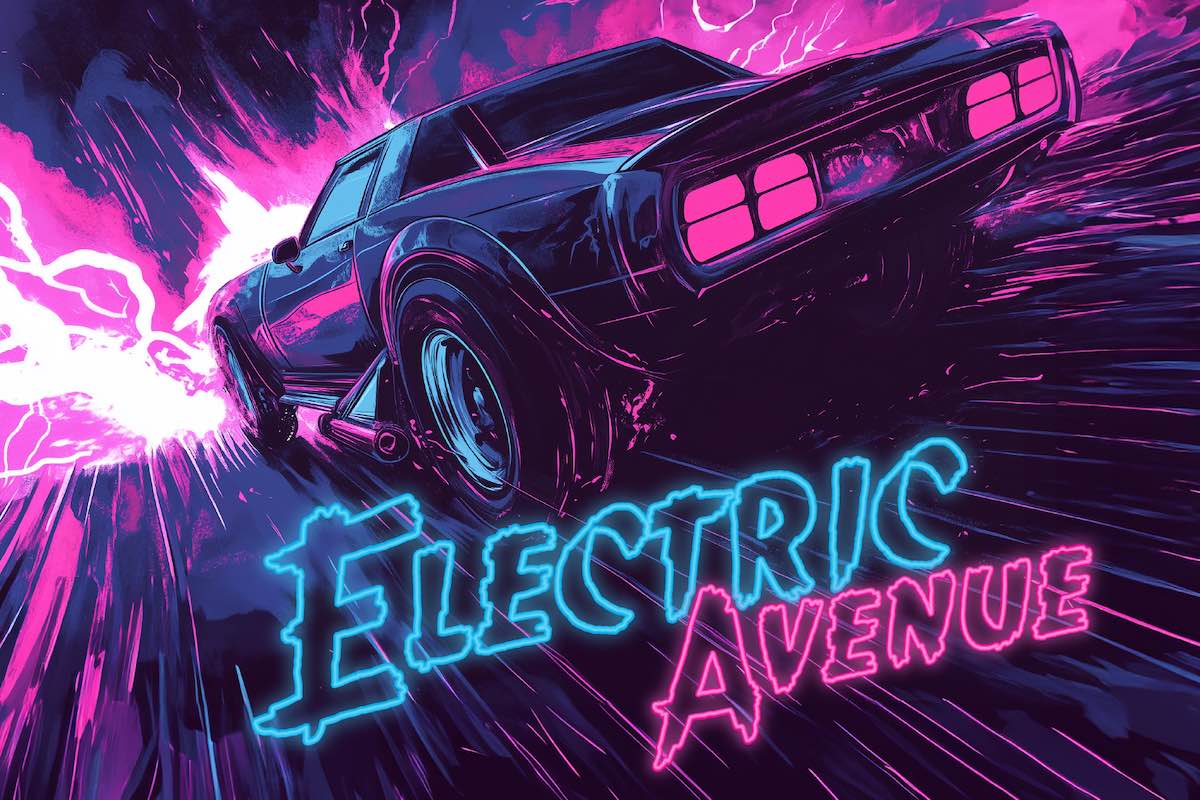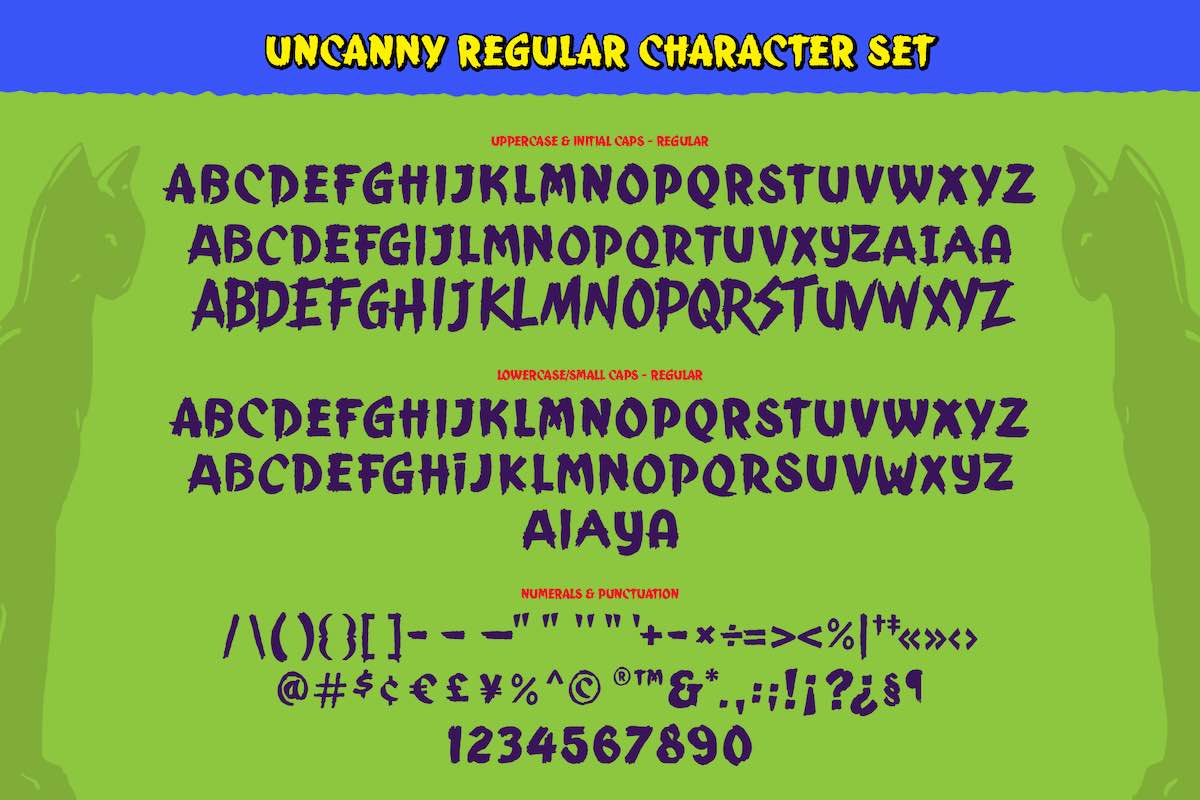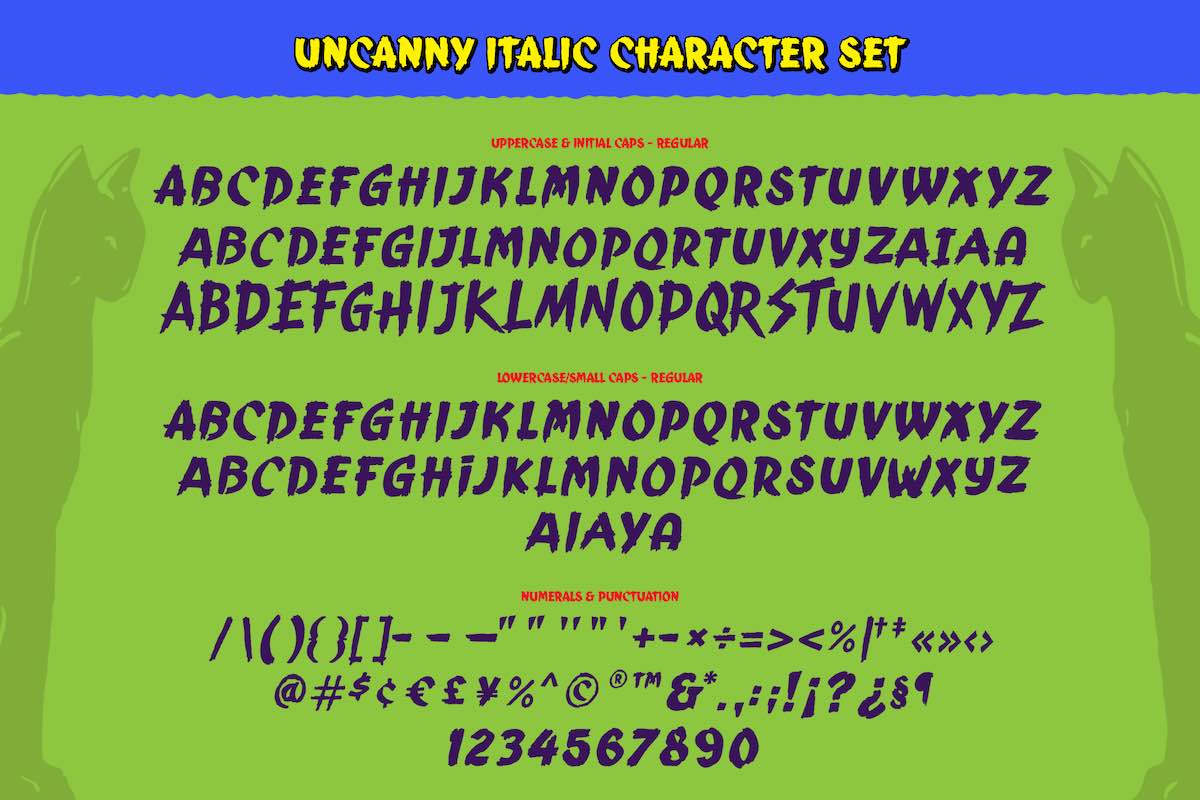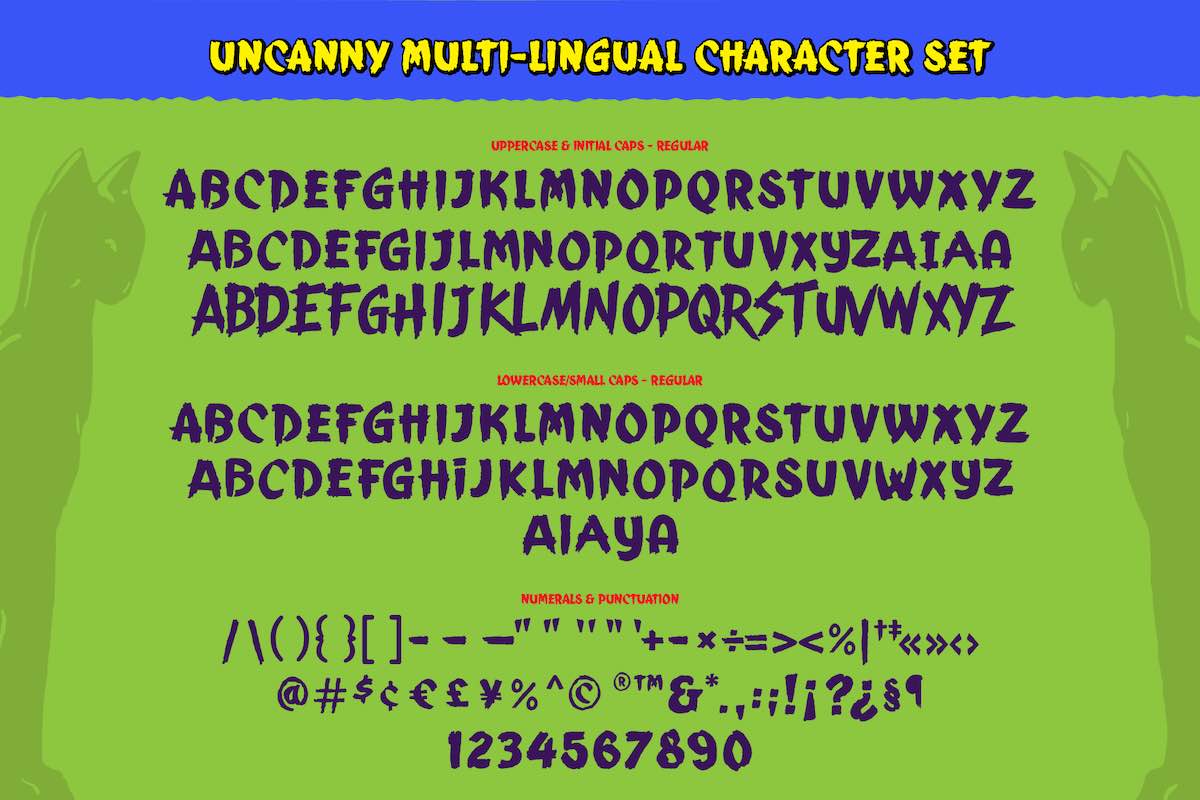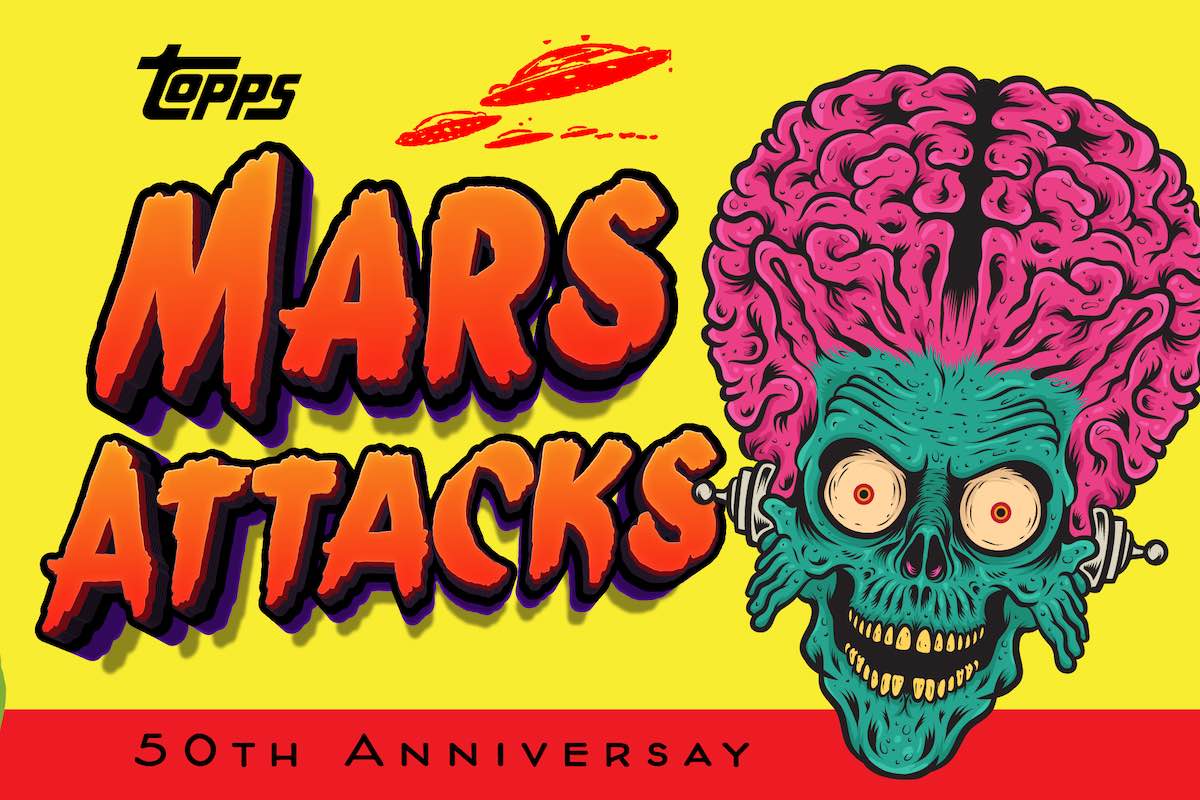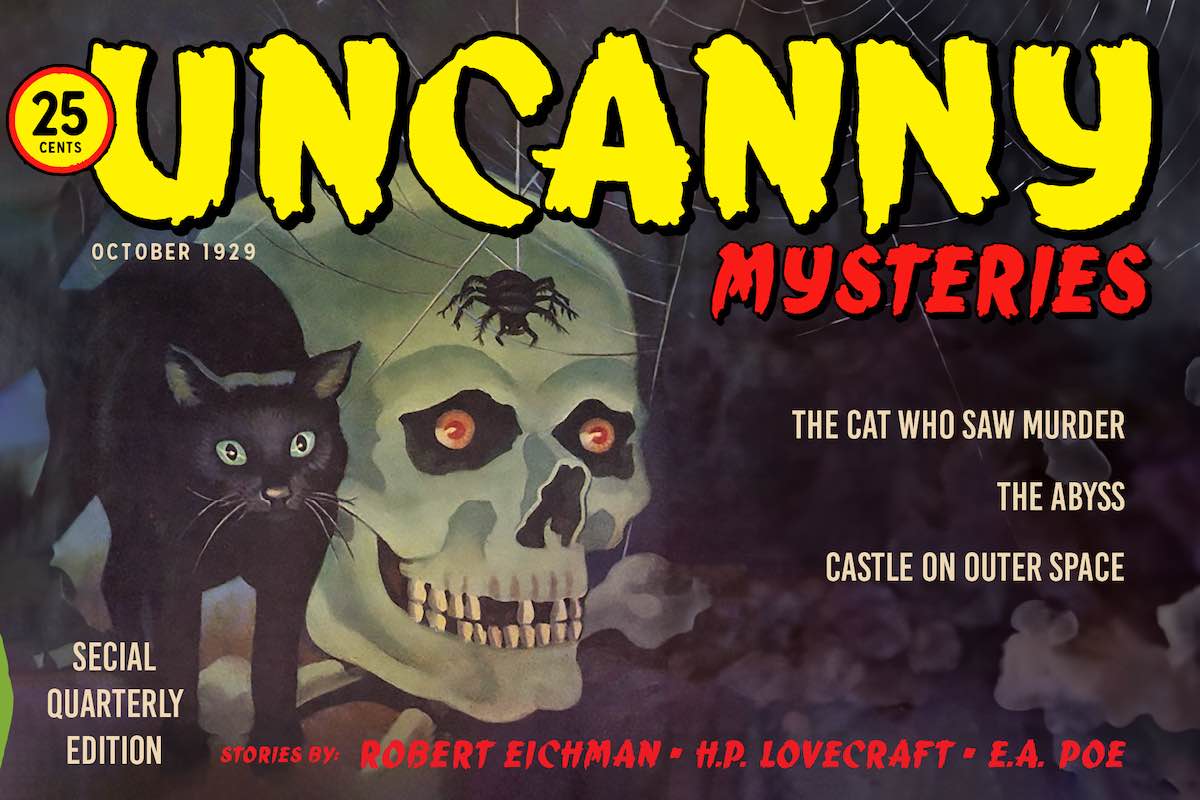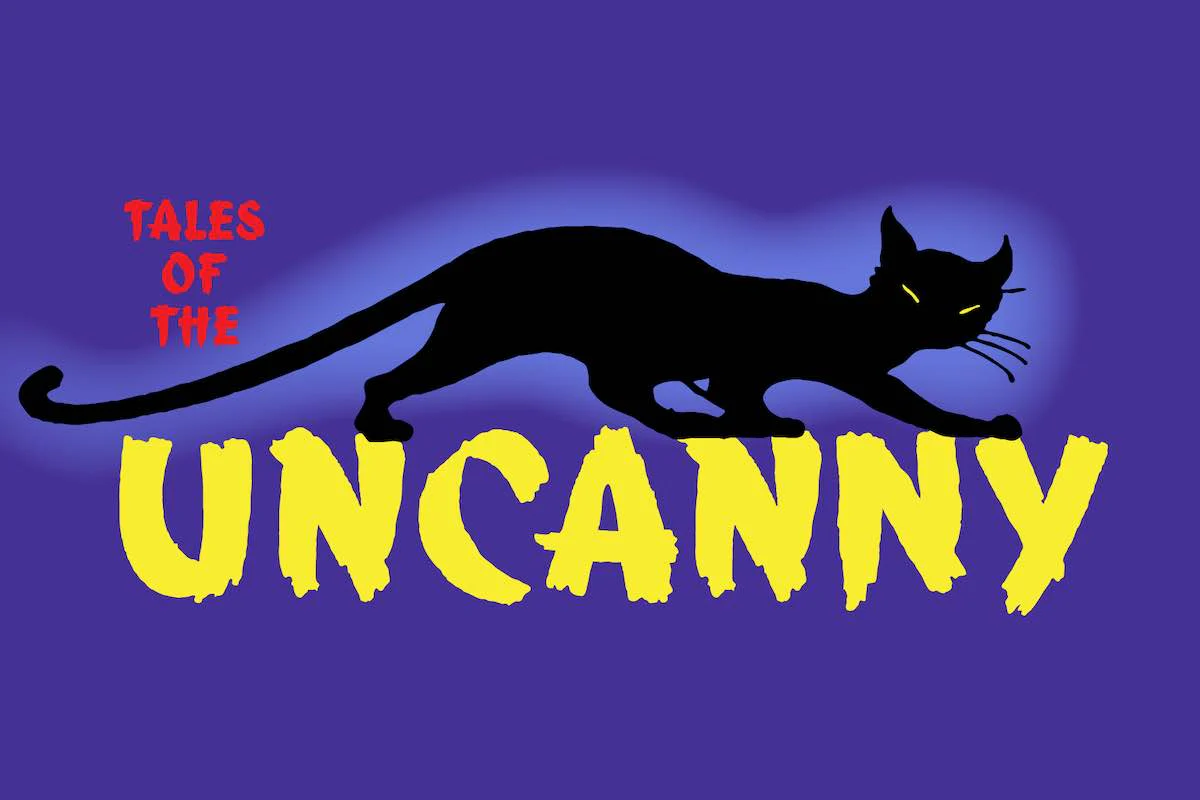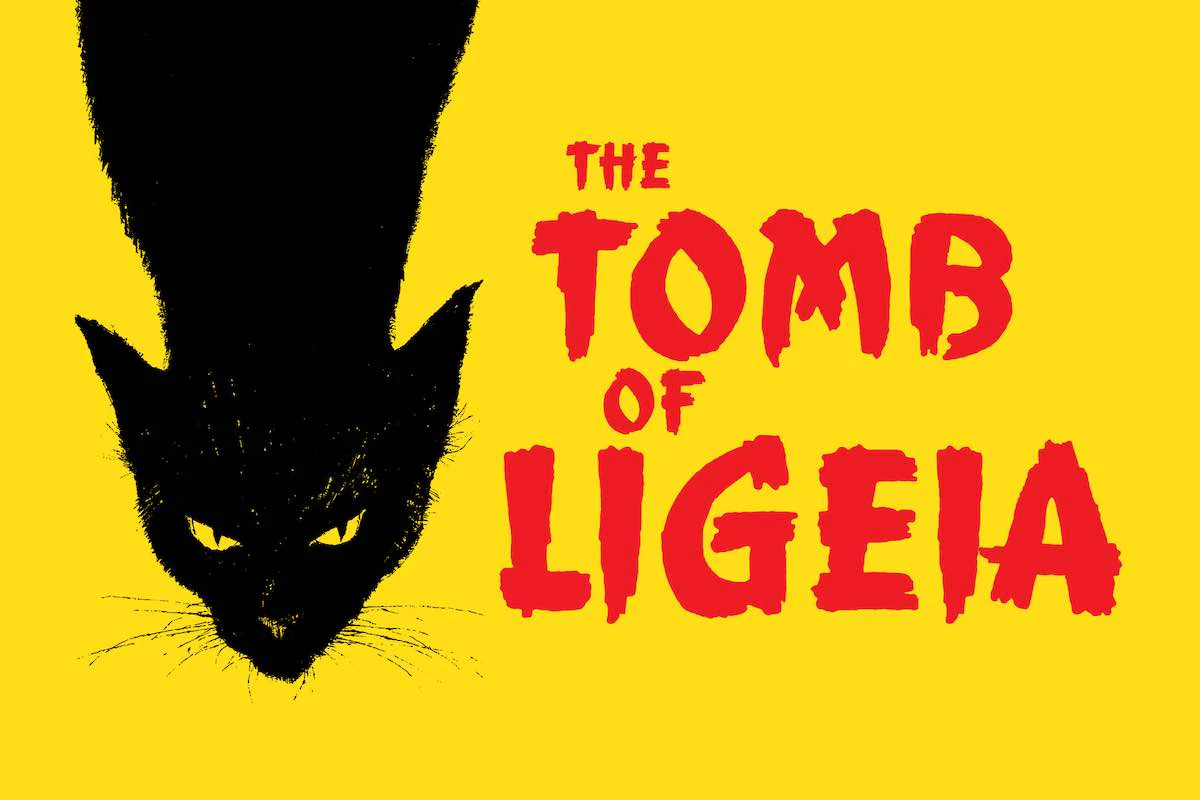
Uncanny Vintage Brush Font
Uncanny is a vintage brush font inspired by a thrilling mashup of classic horror and 1980s futurism. Designed by the award-winning illustrator Scott Banks, this font will give your projects the spooky or retro feel they need, with two distinct styles that make it perfect for everything from Halloween graphics to bold 80s-inspired designs.
Two Distinct Styles:
- Regular for a bold, vintage horror look, perfect for movie posters and Halloween events.
- Italic for that unmistakable 1980s retro vibe, ideal for futuristic or neon-inspired designs.
- Complete Character Set: Full alphabet, numbers, and punctuation.
- Multilingual Support: Supports multiple languages for a wide range of creative projects.
- Optimized for OpenType: Includes ligatures, contextual alternates, and stylistic features for seamless design integration.
- Bonus Vintage Cat Clip Art: Enhance your design with spooky, retro cat-themed illustrations.
- Six Editable Live-Text Effects: Apply customizable graphic styles with ease to create unique text effects.
- Perfect for Horror & Retro Projects: Whether you're designing for Halloween, creating retro posters, or developing unique branding, PM Uncanny delivers the perfect blend of eerie and nostalgic aesthetics.
- High Customization: The OpenType features and live-text effects give you creative freedom to personalize the font for any project.
- Award-Winning Design: Crafted by Scott Banks, an acclaimed designer and illustrator, ensuring top-tier quality and style in every stroke.